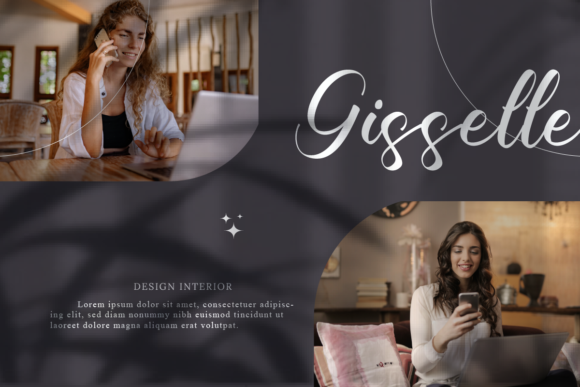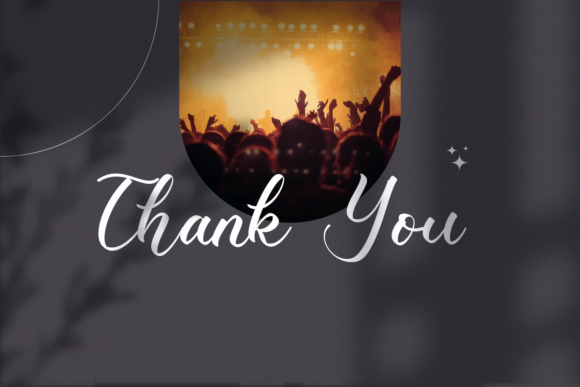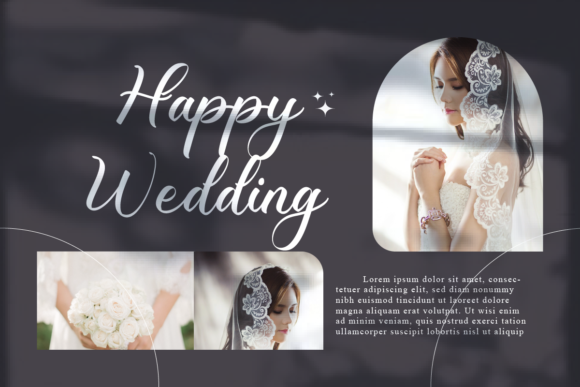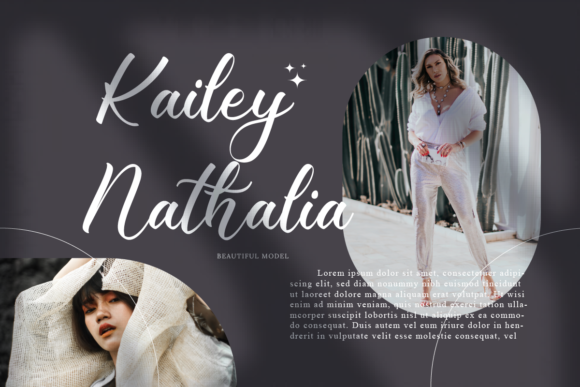
About Natasha Font
Natasha is a stunning and exquisite handwritten font that seamlessly blends classic calligraphic elements with a modern and fresh twist. Its graceful strokes and impeccable design make it an exceptional choice to elevate your creative projects to new heights.
When it comes to branding and logo design, Natasha exudes a sense of elegance and sophistication. Its refined script adds a touch of luxury and exclusivity, making it a perfect fit for high-end brands seeking to make a lasting impression.
For wedding invitations and event stationery, Natasha brings a sense of romance and charm. Its delicate curves and flowing lines create an atmosphere of beauty and grace, setting the tone for a truly memorable celebration.
In editorial layouts, such as magazine spreads or book covers, Natasha’s exquisite style can captivate readers and draw them into the content. Its timeless appeal adds an element of artistry to any design, making it a valuable asset for conveying messages effectively.
Natasha also shines on digital platforms, such as social media and websites. Whether used in captions, banners, or graphics, its unique flair adds a personalized touch that resonates with viewers and creates a sense of authenticity.
Crafting and DIY projects take on a new level of elegance with Natasha. From personalized gifts to handmade cards, its sophisticated script enhances the aesthetic value of your creations and adds a touch of refinement.
Artistic endeavors flourish with Natasha as well. Whether you’re designing typographic artwork, inspirational quotes, or digital illustrations, the font’s exquisite design adds an extra layer of beauty to your creations.
In summary, Natasha is an exceptional handwritten font that effortlessly combines classic charm with contemporary elegance. Its versatility and timeless appeal make it a valuable asset for a wide range of design projects. By embracing Natasha, you have the opportunity to infuse your work with a touch of sophistication and create designs that leave a lasting impression on your audience.